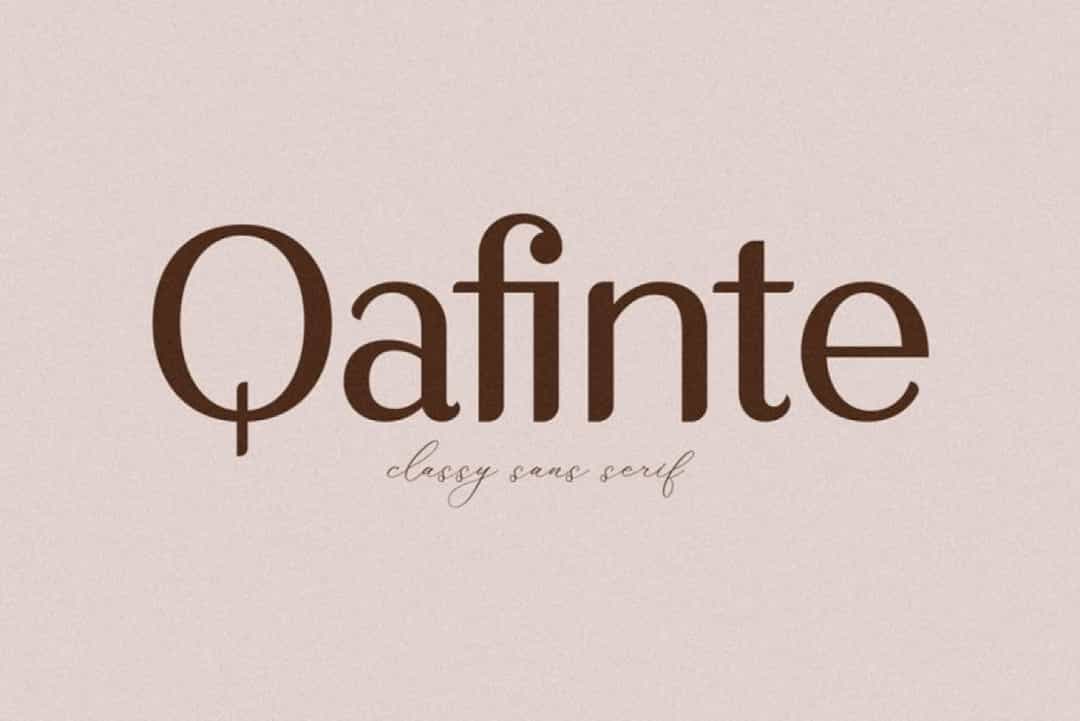
Qafinte is a contemporary yet classic sans serif font with its distinctive style and appearance, ideal for creating elegant logos, movie or book name designs, fashion clothing brand names, magazine letters and quotes and much more.